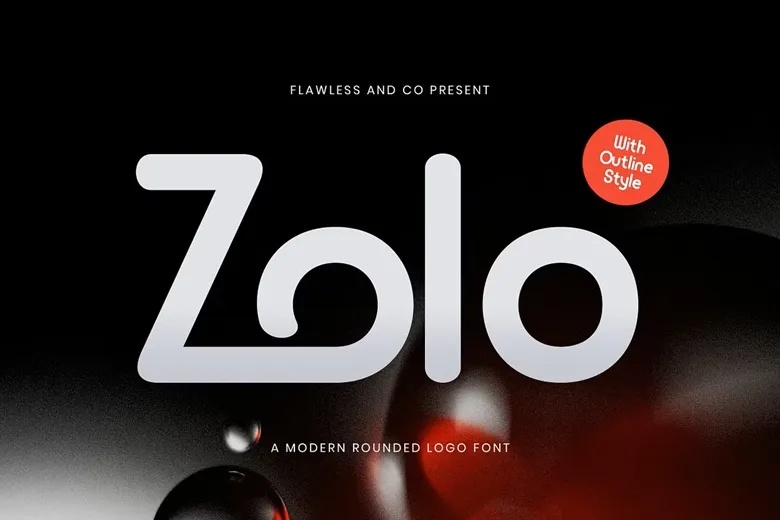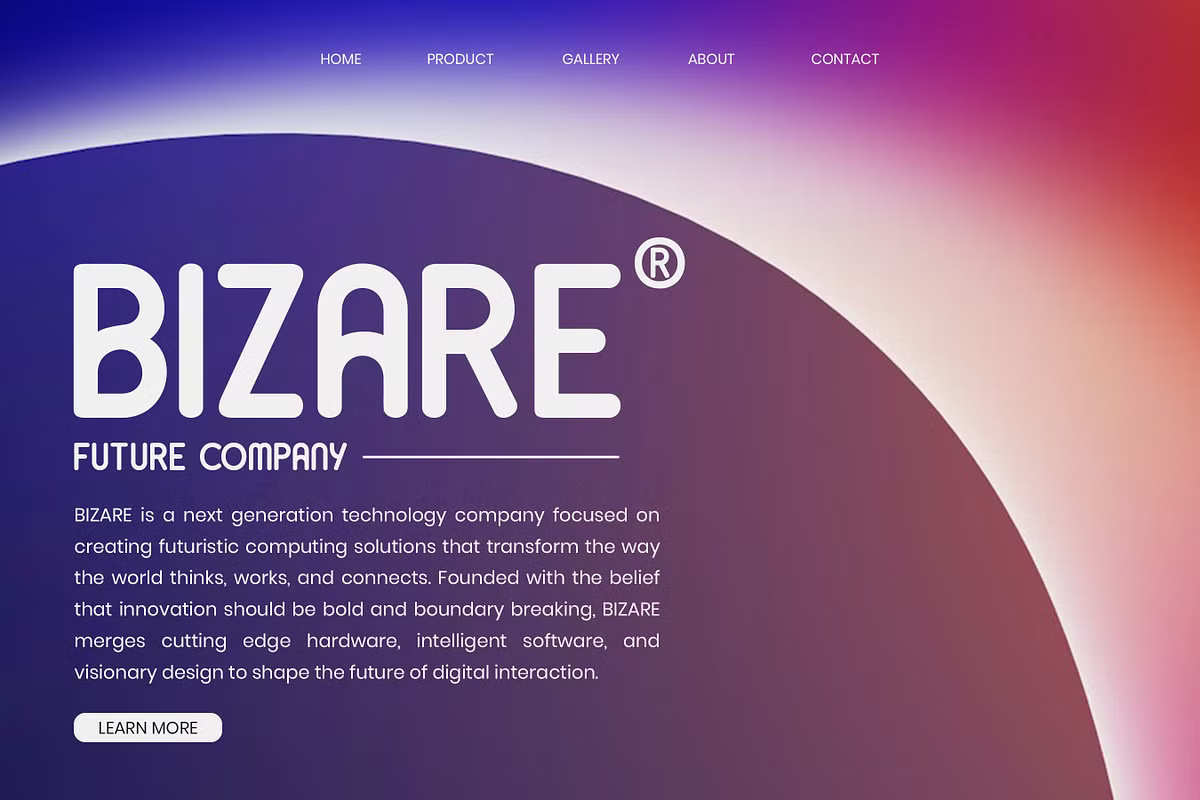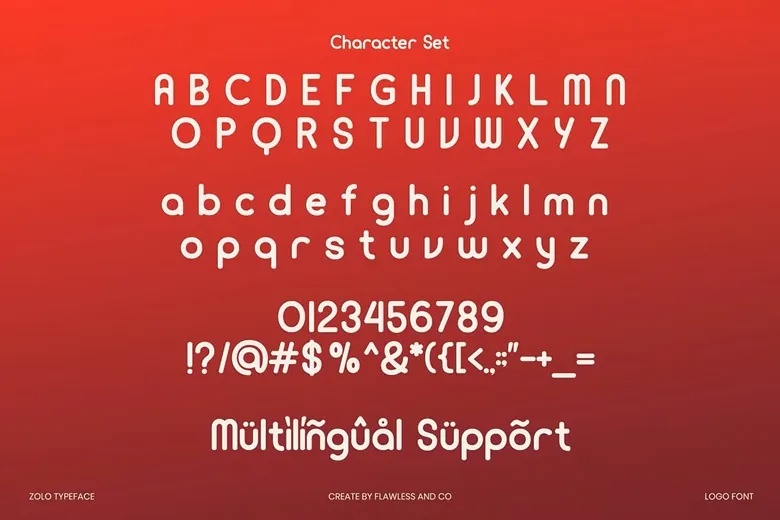
ZOLO is a sleek, modern, and minimal rounded sans serif font designed to make your brand stand out. With its clean curves and smooth structure, ZOLO exudes elegance and approachability, making it a perfect fit for logos, tech products, branding assets, and polished presentation designs.
The font includes two versatile styles—Regular and Outline—giving you the flexibility to craft bold or delicate visual identities. Whether you’re building a futuristic logo or a friendly, tech-forward brand, ZOLO delivers clarity, charm, and modern appeal in one refined typeface.
Zolo Logo Font